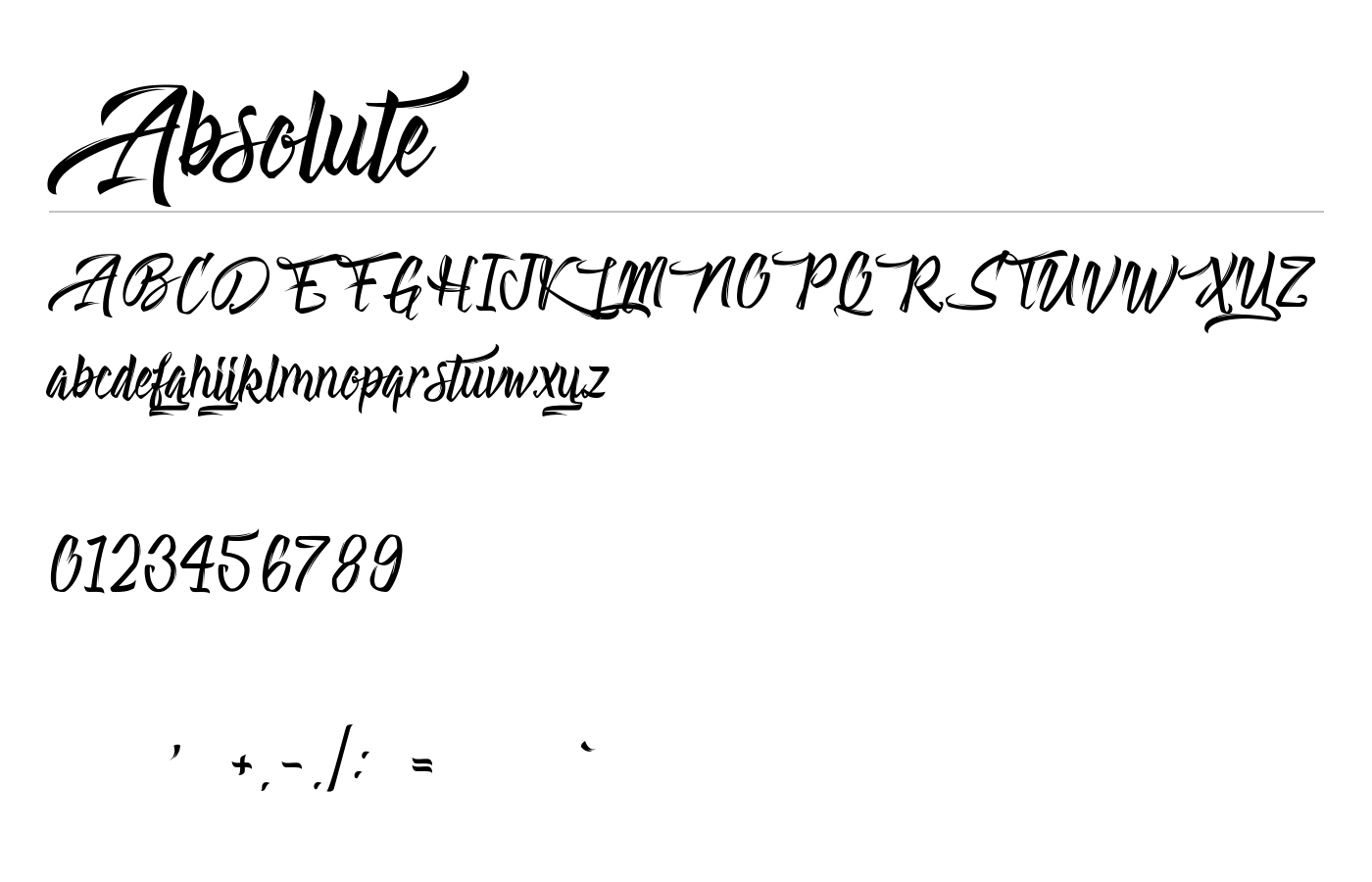
Absolute Font is an elegant, bold script typeface with a lively, hand-brushed style that blends thick and thin strokes for a dynamic contrast. Its flourishing uppercase letters and smooth, connected lowercase forms create a sophisticated yet approachable feel, making it perfect for stylish branding, invitations, and eye-catching headlines. This font shines in designs that seek a modern, artistic flair with a touch of personality and flair.
Absolute Font
About Absolute Font